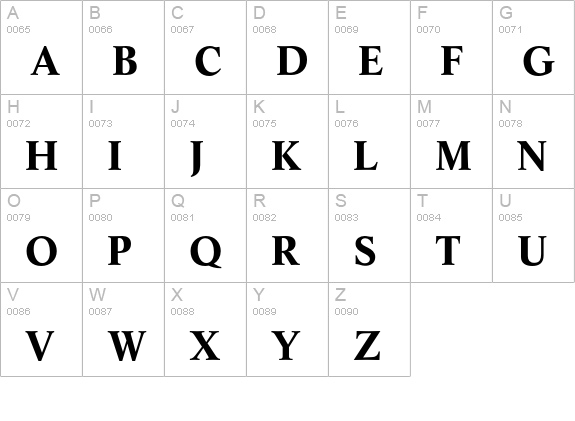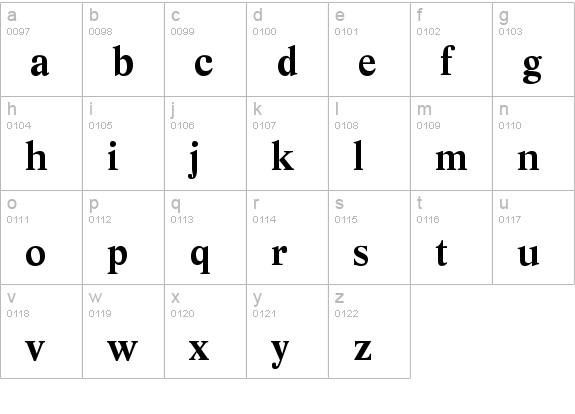
12 Life** Bold 07150 is a strong, high-contrast variant in the 12 typeface family \xE2\x80\x94 well suited to headlines, attention-grabbing titles, and strong calls-to-action.
Introducing 12 Life** Bold 07150 font, a modern and stylish typeface designed to make a bold statement. With its sleek lines and strong presence, this font is perfect for creating eye-catching designs that demand attention. Whether you're working on a logo, poster, or branding project, 12 Life** Bold 07150 font is sure to make your text stand out. What's even better is that this font is completely free to download at FontsMarket.com. Yes, you read that right - you can get your hands on 12 Life** Bold 07150 font at no cost at all. So why wait? Enhance your design projects with this striking and versatile typeface today!